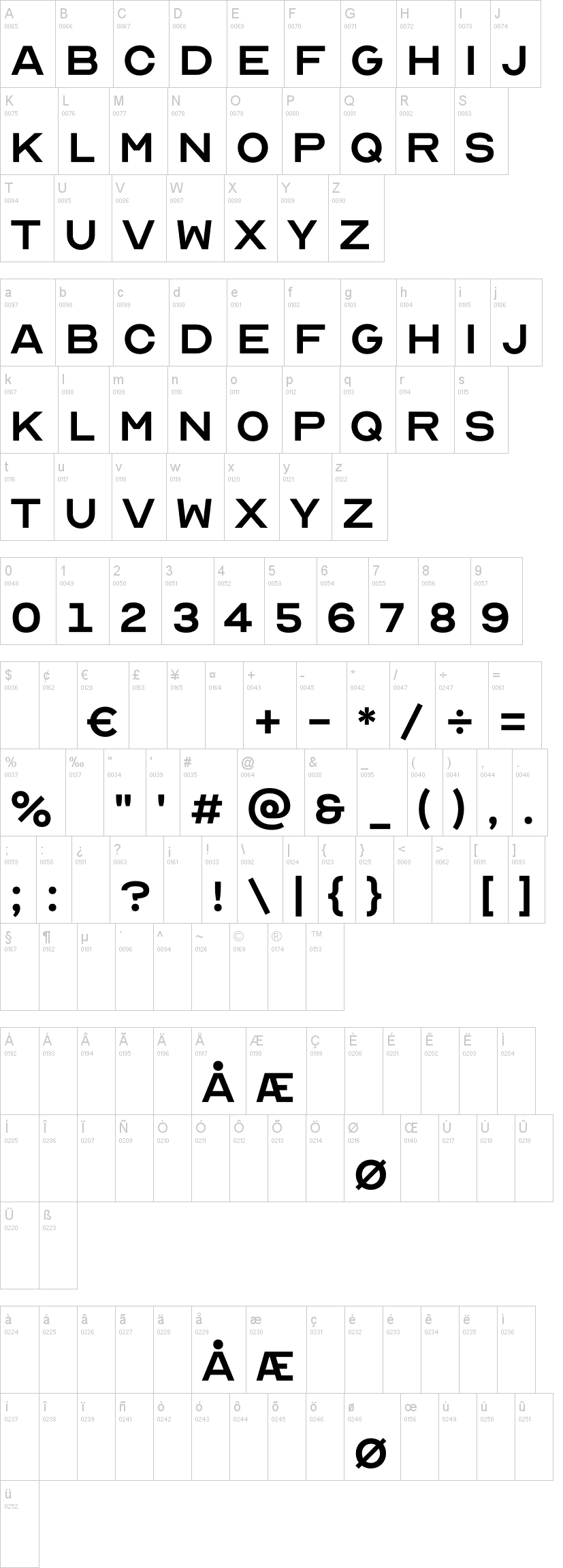
Note of the authorOptician Sans is a free typeface based on the 10 historical optotype letters seen on millions of eye charts world wide. Finalising the work that was started decades ago. Visit optician-sans.com for more information.